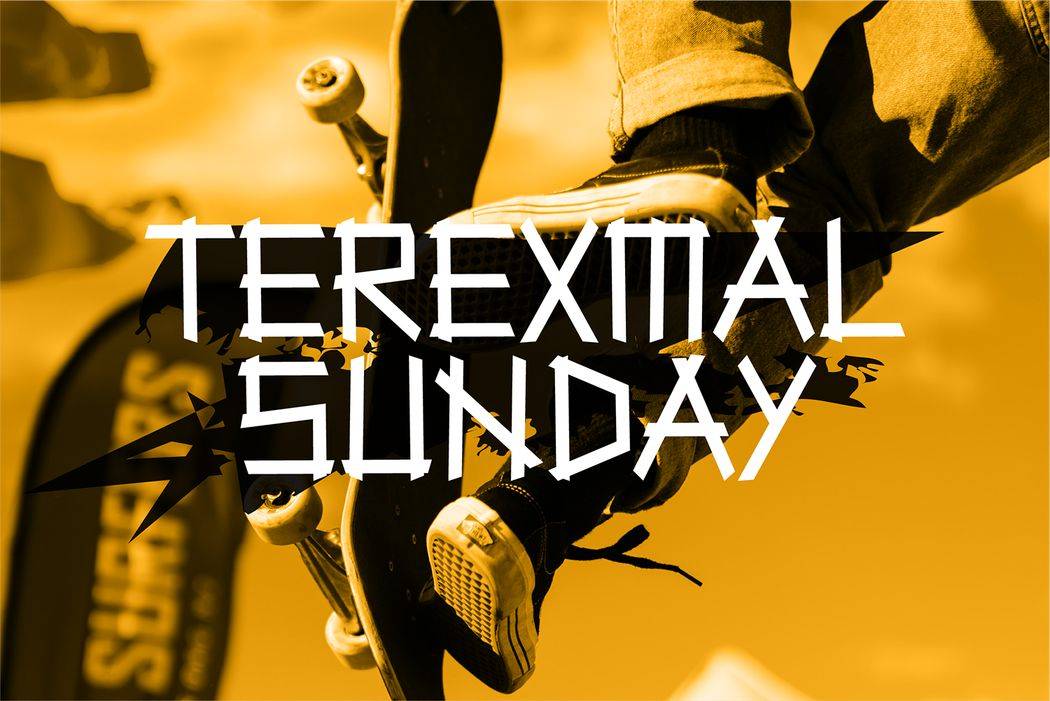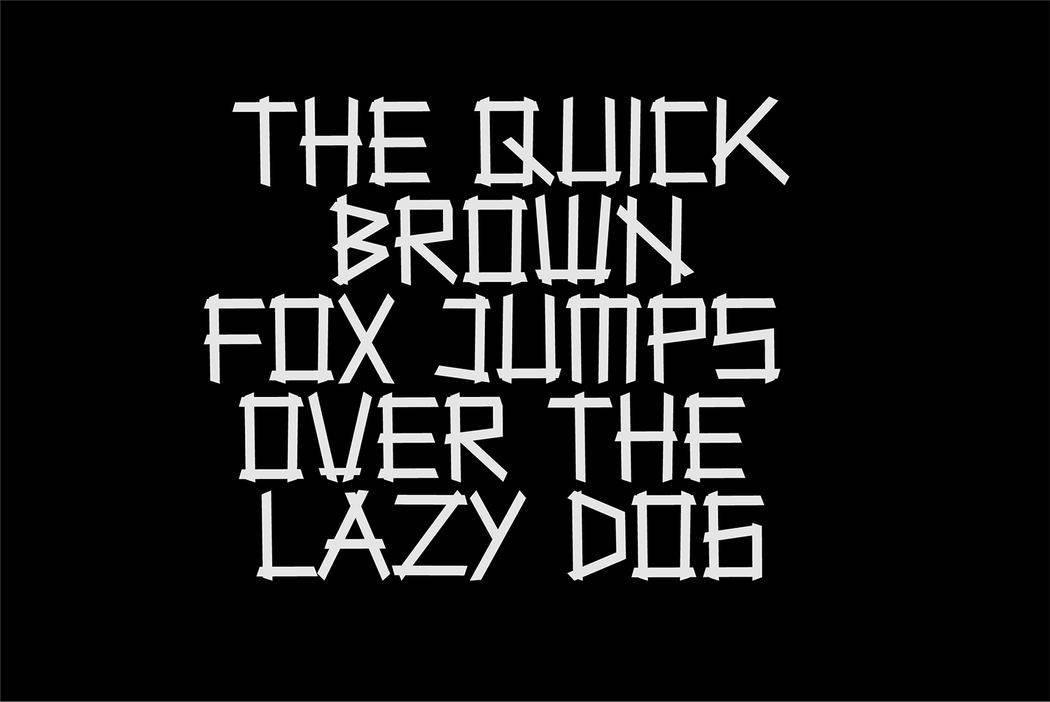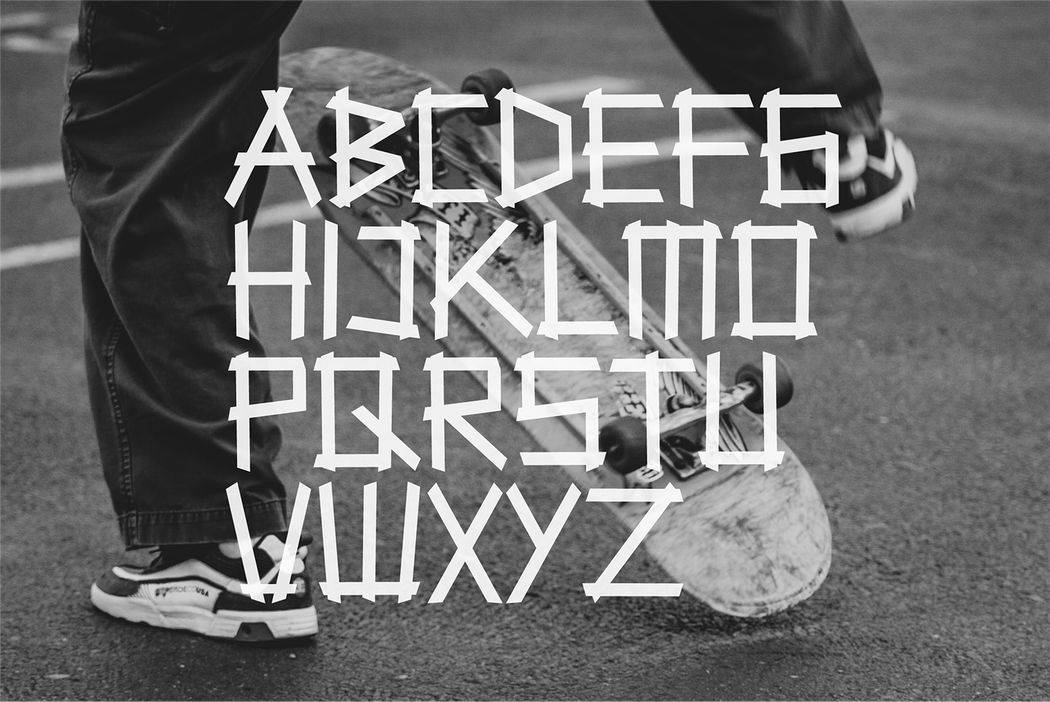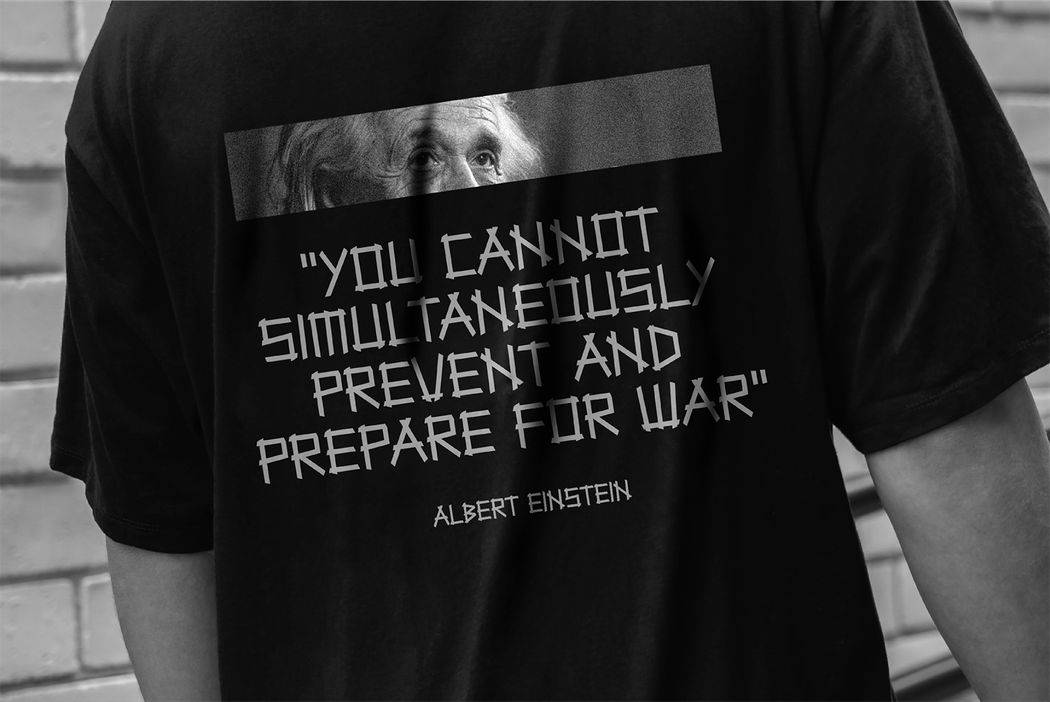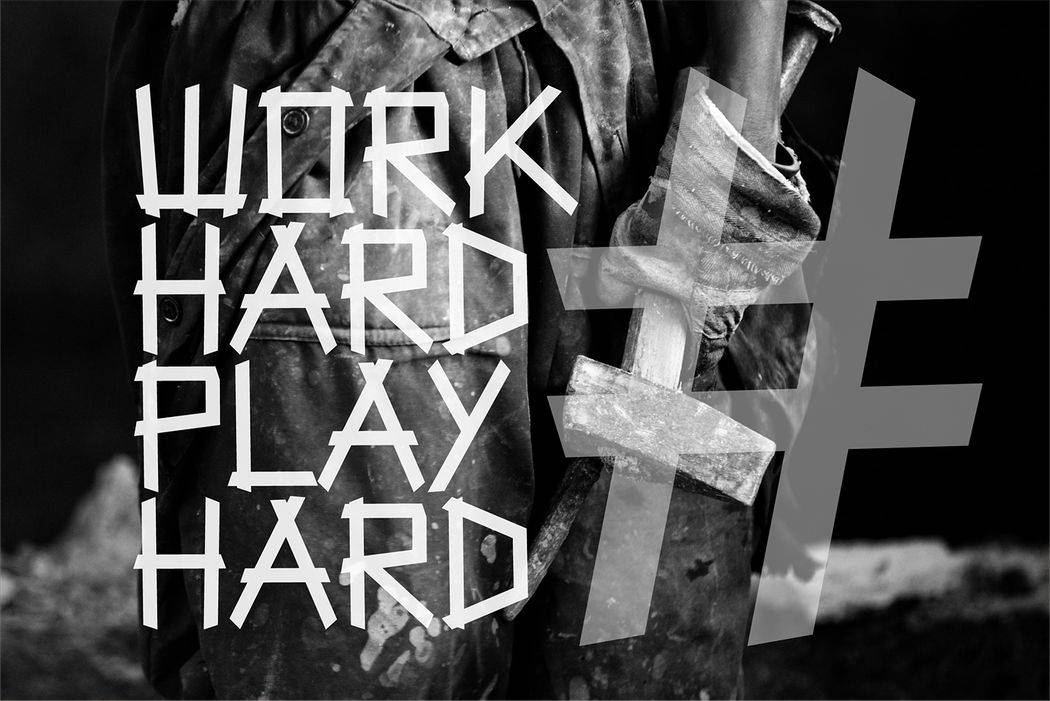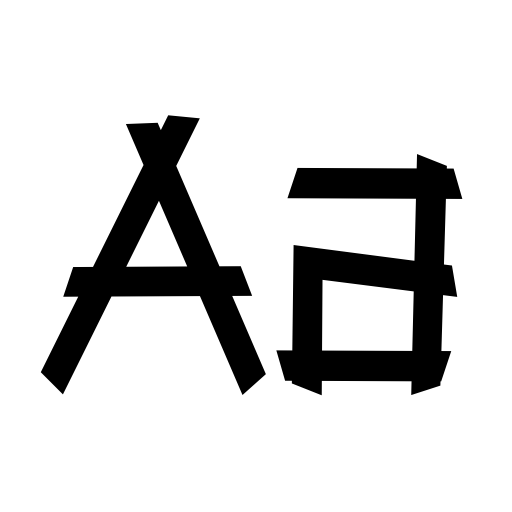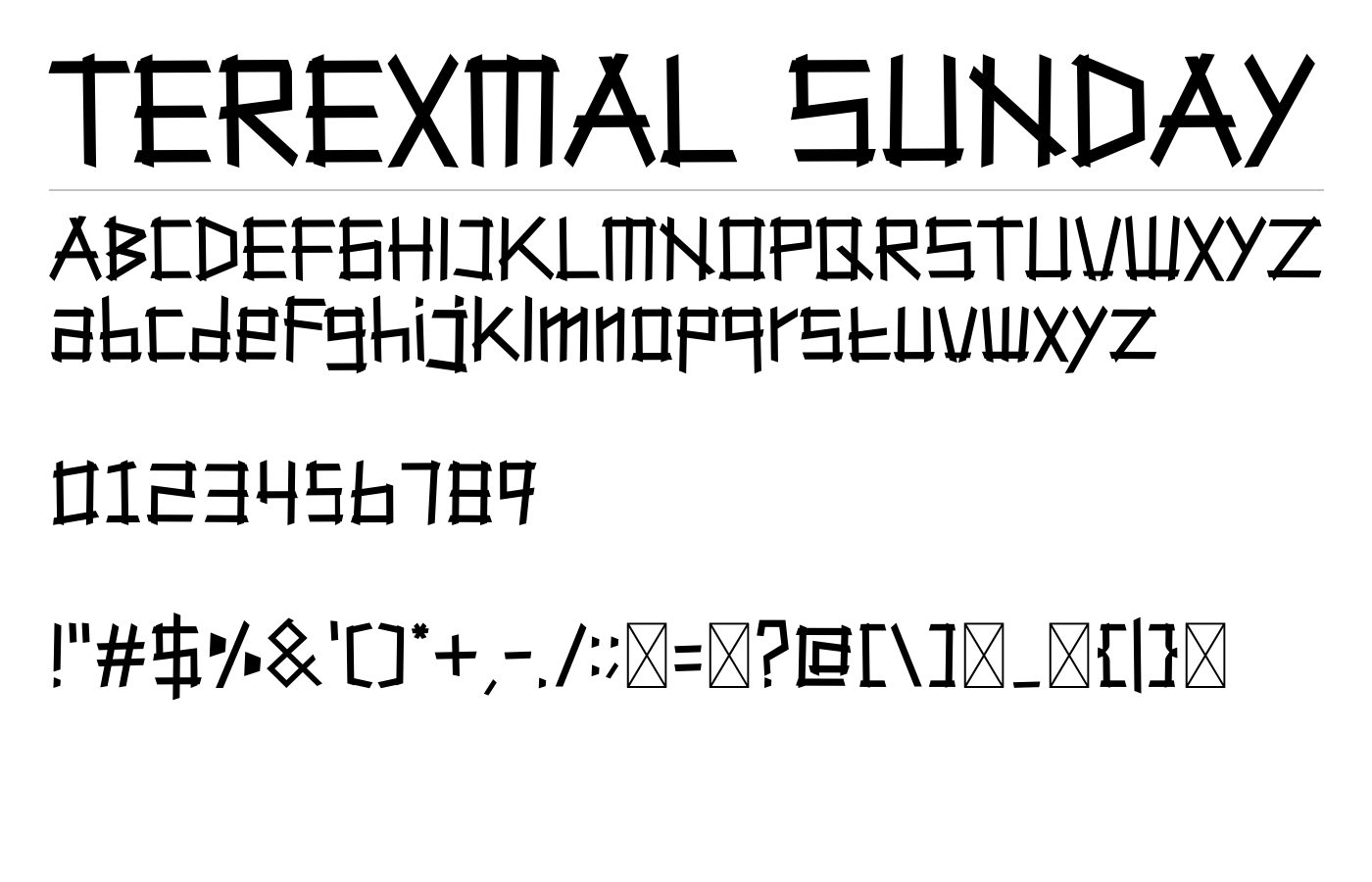
Terexmal Sunday is a distinctive sans serif font with a playful, hand-crafted feel, characterized by its irregular, angular strokes and sharp edges. Its medium weight and moderately tall x-height make it legible yet eye-catching, perfect for informal branding, posters, and creative projects that aim to convey energy and uniqueness. This font works especially well in headlines or display uses where personality and a touch of whimsy are desired.
Terexmal Sunday Font
About Terexmal Sunday Font